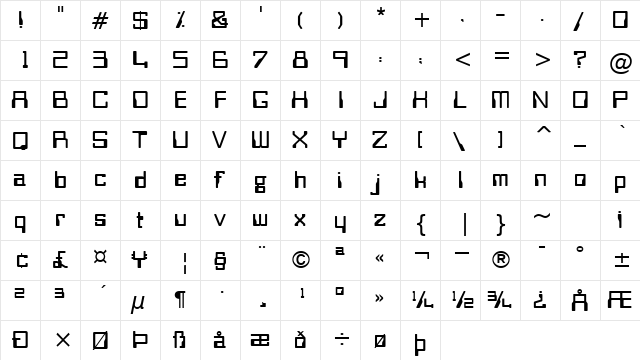
Futuristic Normal
Design Context for Futuristic Typeface
Futuristic has a distinctly futuristic character, with geometric precision and clean angles that feel at home in technology, gaming, and sci-fi contexts.
Pro Tip: Use Futuristic in combination with a neutral sans for body text. Let it define the brand voice in headlines while keeping reading comfortable elsewhere.